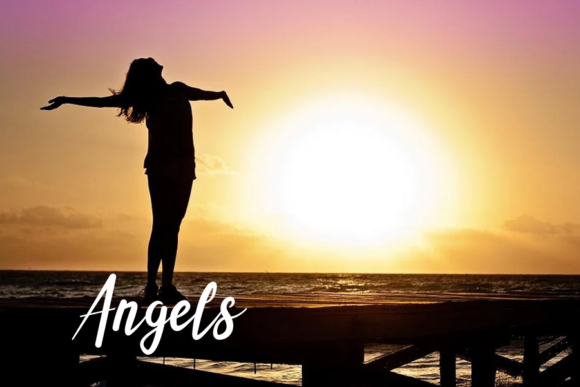
Discover the Allure of Beach Font: Elevate Your Designs
Have you ever been captivated by the sound of waves gently lapping against the shore, the warm sand beneath your feet, and the vibrant colors of a sunset? For many creatives, these serene beach scenes evoke a sense of inspiration and tranquility, sparking a desire to capture their essence in their work. For graphic designers, this can manifest in the perfect font to complement their beach-themed projects.
| 👤 Author | AA studio |
Enter Beach Font, a delicate, elegant, and flowing handwritten font that exudes the same effortless charm as a summer breeze. With its beautiful and well-balanced characters, Beach Font is the perfect addition to any design project, effortlessly matching a wide range of styles and themes. Whether you’re designing a beach-inspired website, a travel brochure, or a wedding invitation, Beach Font is sure to add a touch of sophistication and elegance.
Key Features of Beach Font
- Unique Characteristics: Beach Font features a unique, hand-drawn design with a distressed, beachy feel, making it perfect for creating a relaxed, casual atmosphere in design projects.
Beach Font Review
As a designer, I recently had the opportunity to work with the “Beach Font” and I must say it was a unique experience.
- Unique and beach-inspired aesthetic: The font does an excellent job of capturing the feeling of a tropical paradise, making it perfect for projects related to summer, vacation, or relaxation.
- Fun and playful feel: The font’s irregularities and imperfections give it a charming, hand-drawn quality that’s hard to resist.
- Good legibility: Despite its playful nature, the font is still easy to read, even at smaller sizes.
- Not ideal for formal projects: The font’s informal, beachy vibe may not be suitable for more serious or professional projects.
- May not be suitable for small text: While the font is legible, it’s not the best choice for small text, as the irregularities can make it difficult to read.
- May require customization: Depending on the project, you may need to customize the font to fit your specific needs, which can be time-consuming.
The “Beach Font” is a fun and unique addition to any designer’s toolkit. While it may not be suitable for every project, it’s perfect for those looking to add a touch of whimsy and personality to their designs. With a little customization and creativity, this font can help you create truly memorable designs.
Tips for Getting the Most Out of Beach Font
Use Beach Font for:
- Summer-themed designs and projects.
- Beach-themed invitations, posters, and social media graphics.
- Adding a relaxed and casual feel to your designs.
Beach Font is commonly used for:
- Summer-themed designs and projects.
- Beach-themed invitations, posters, and social media graphics.
- Adding a relaxed and casual feel to your designs.